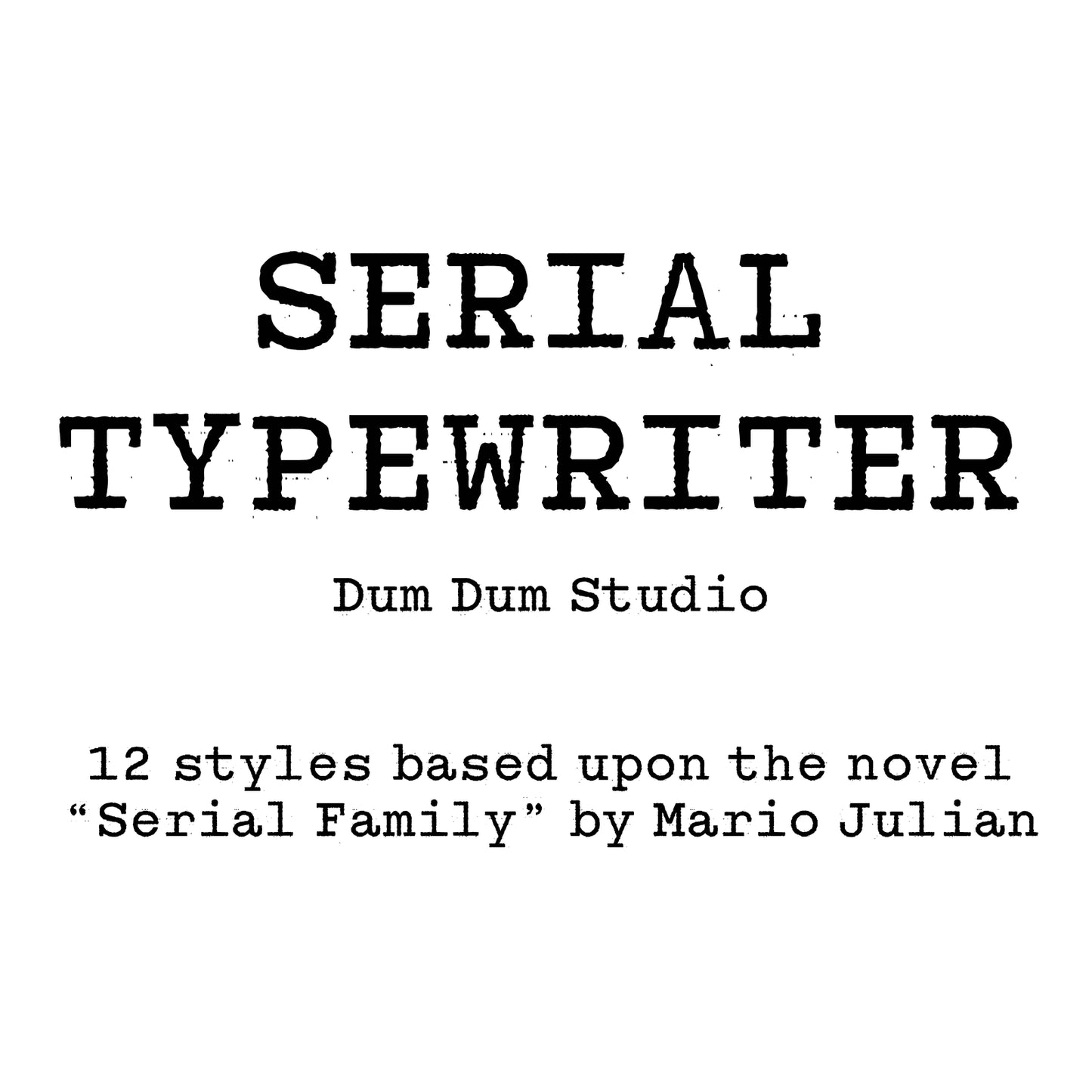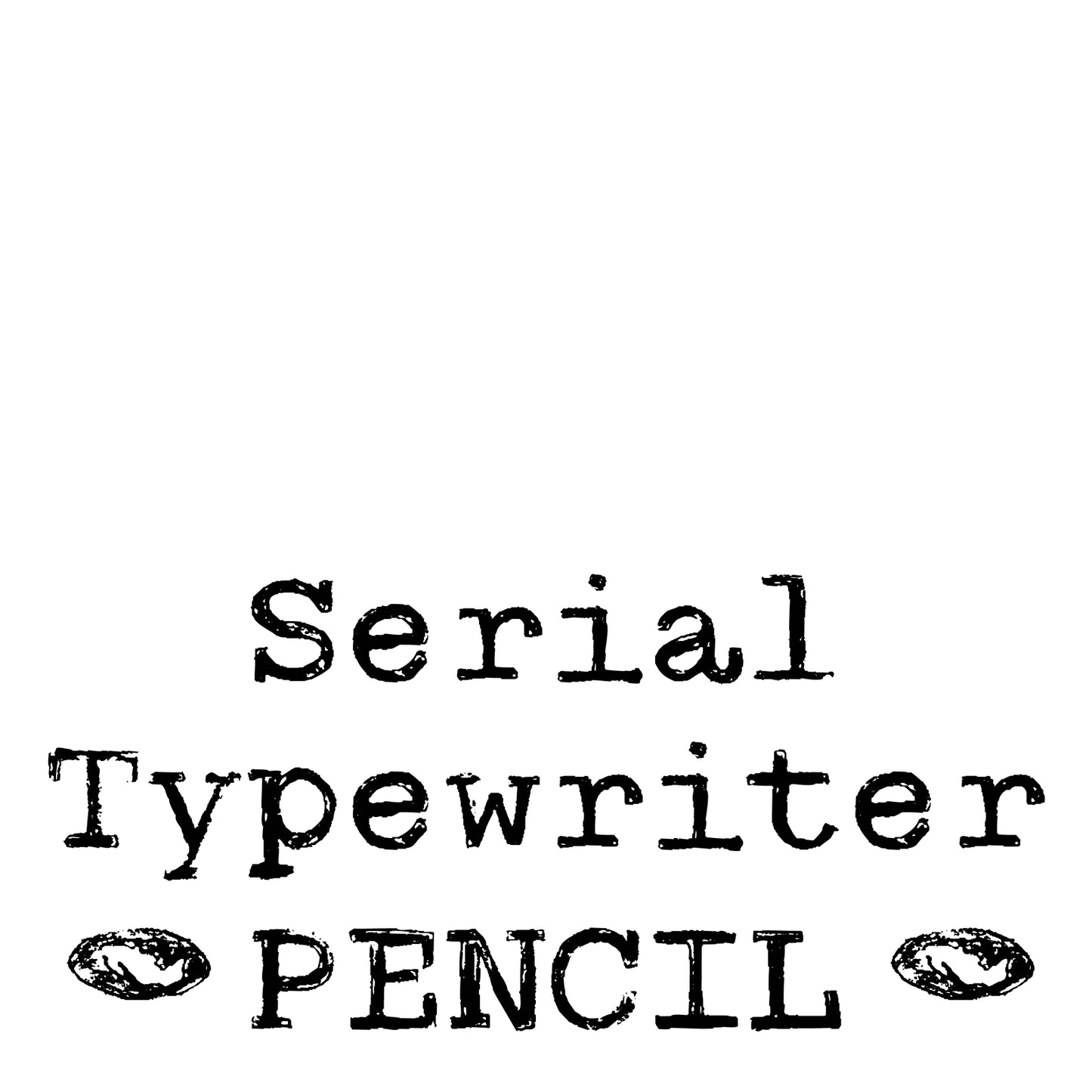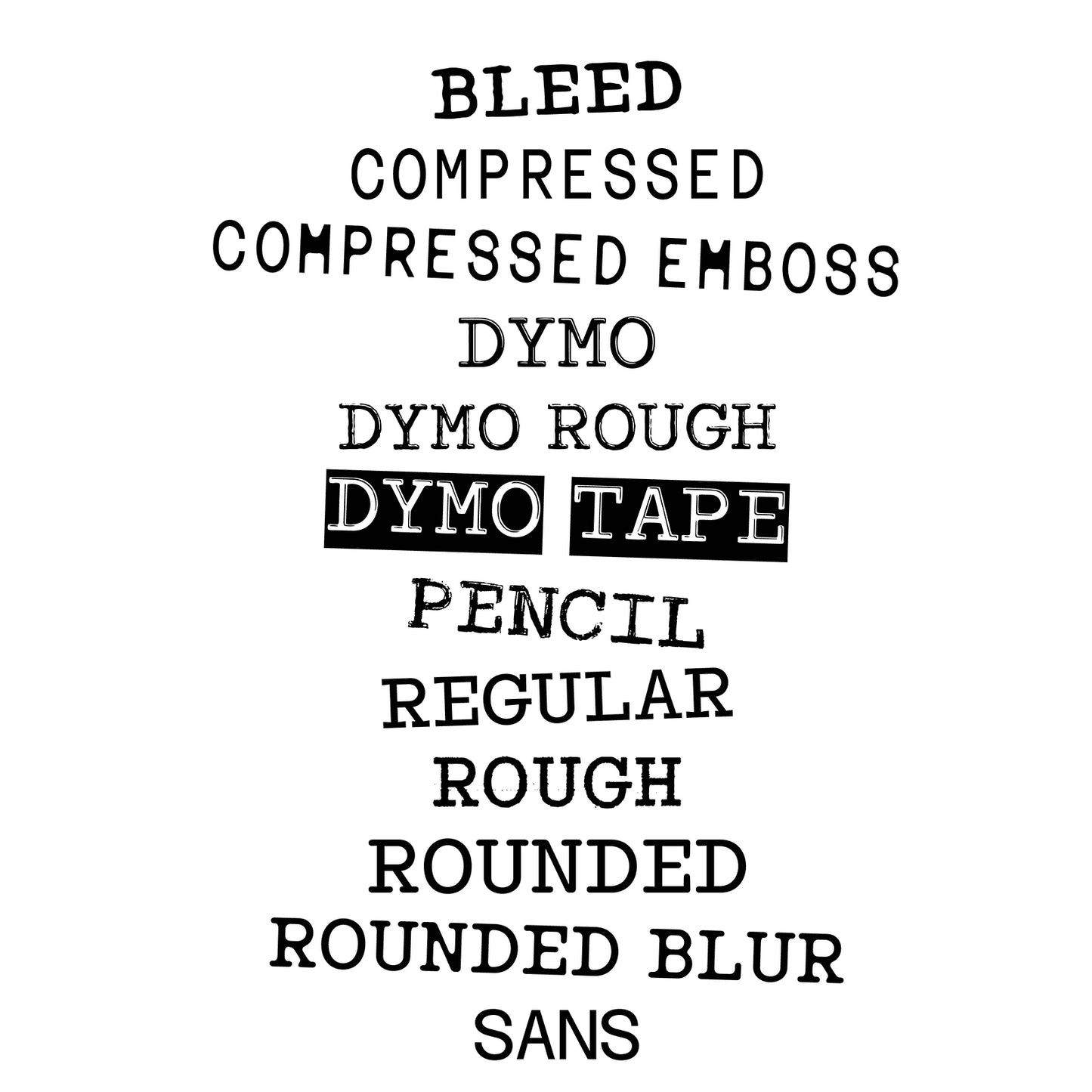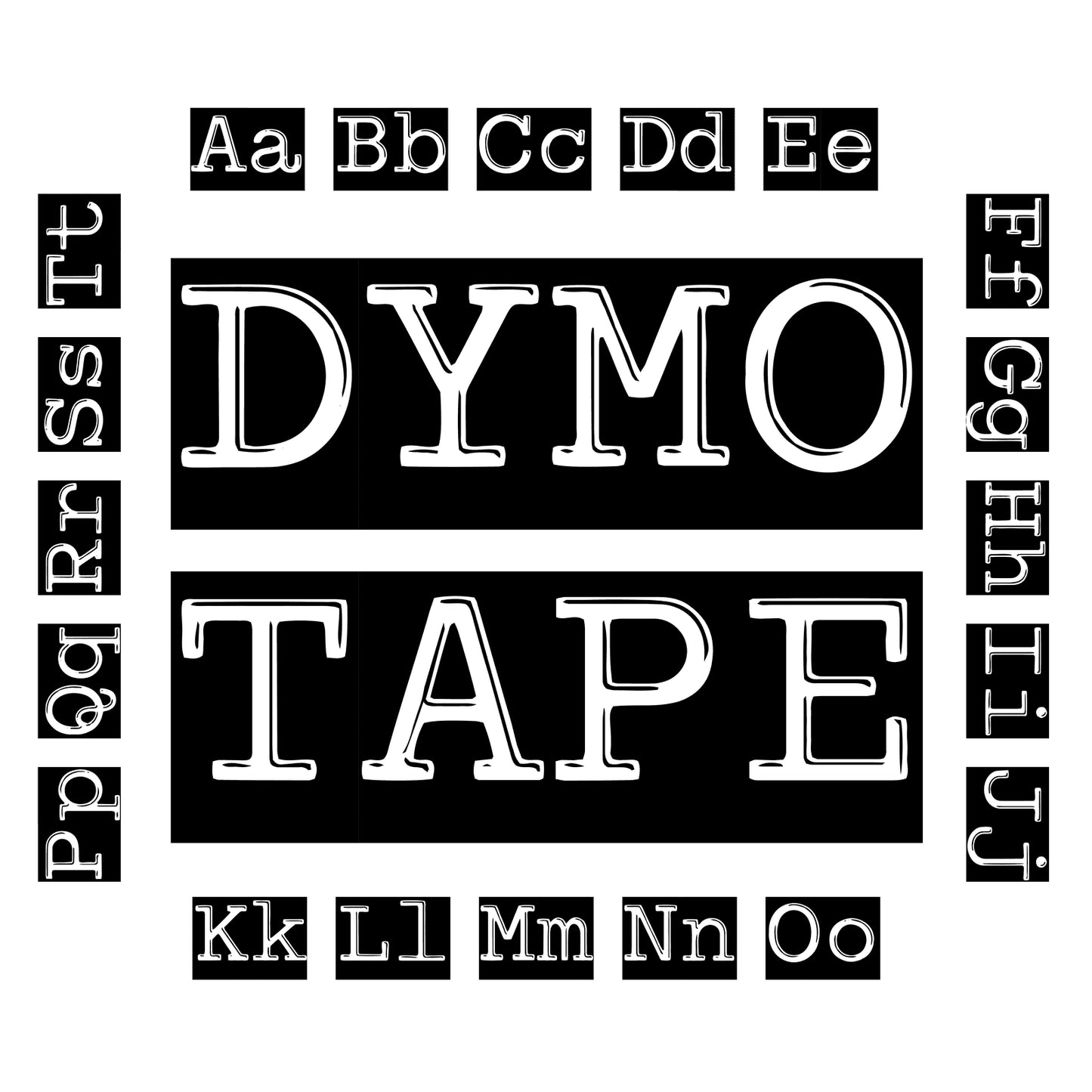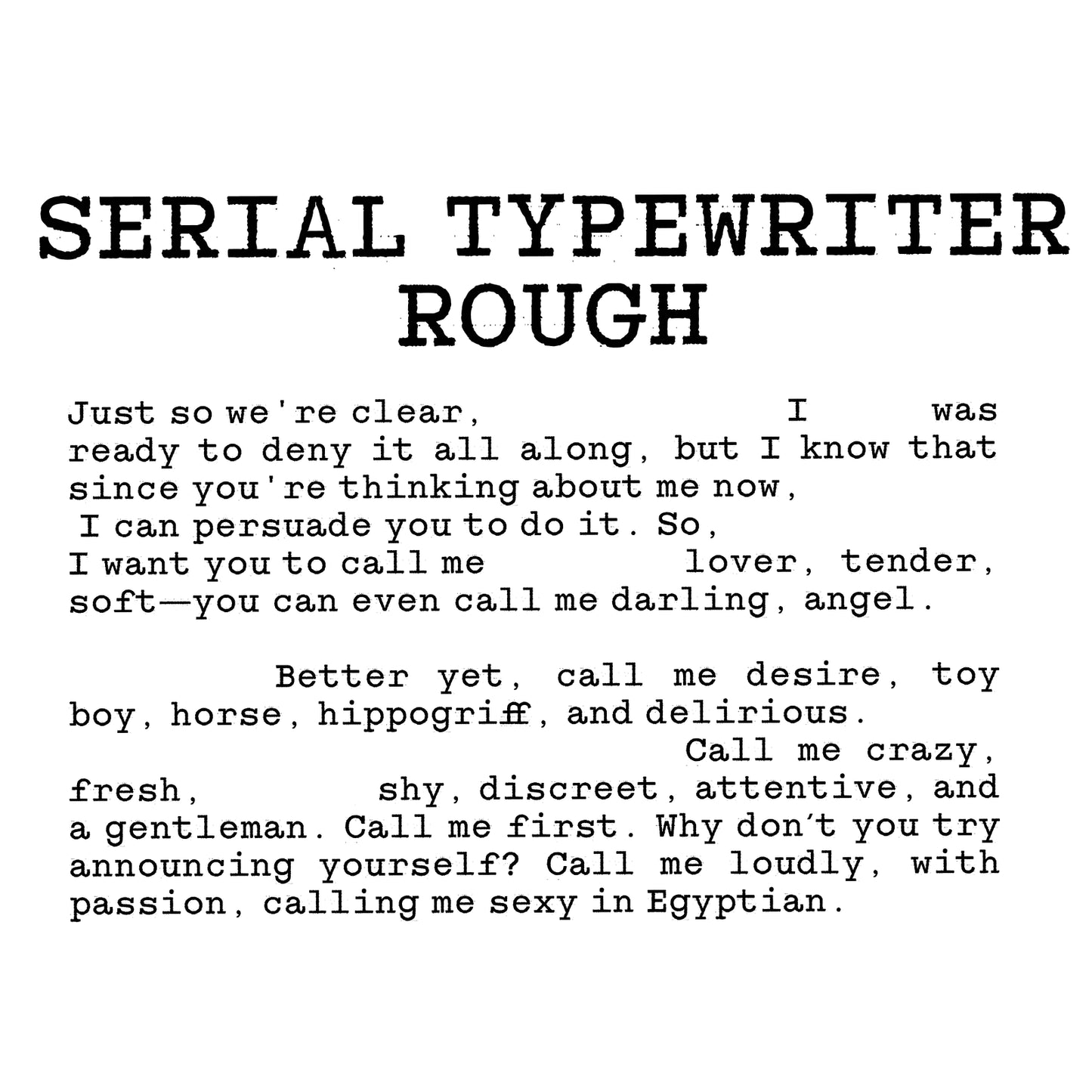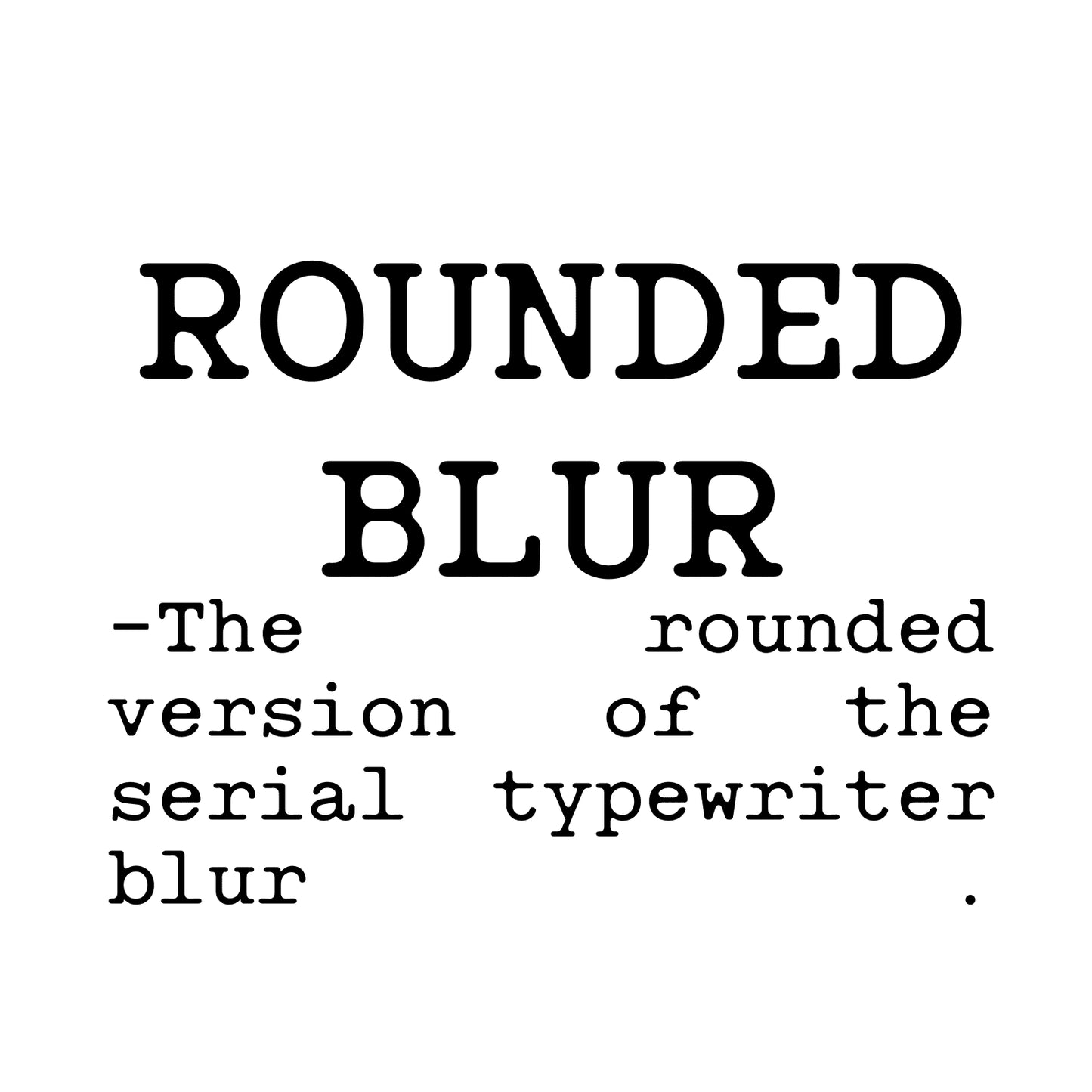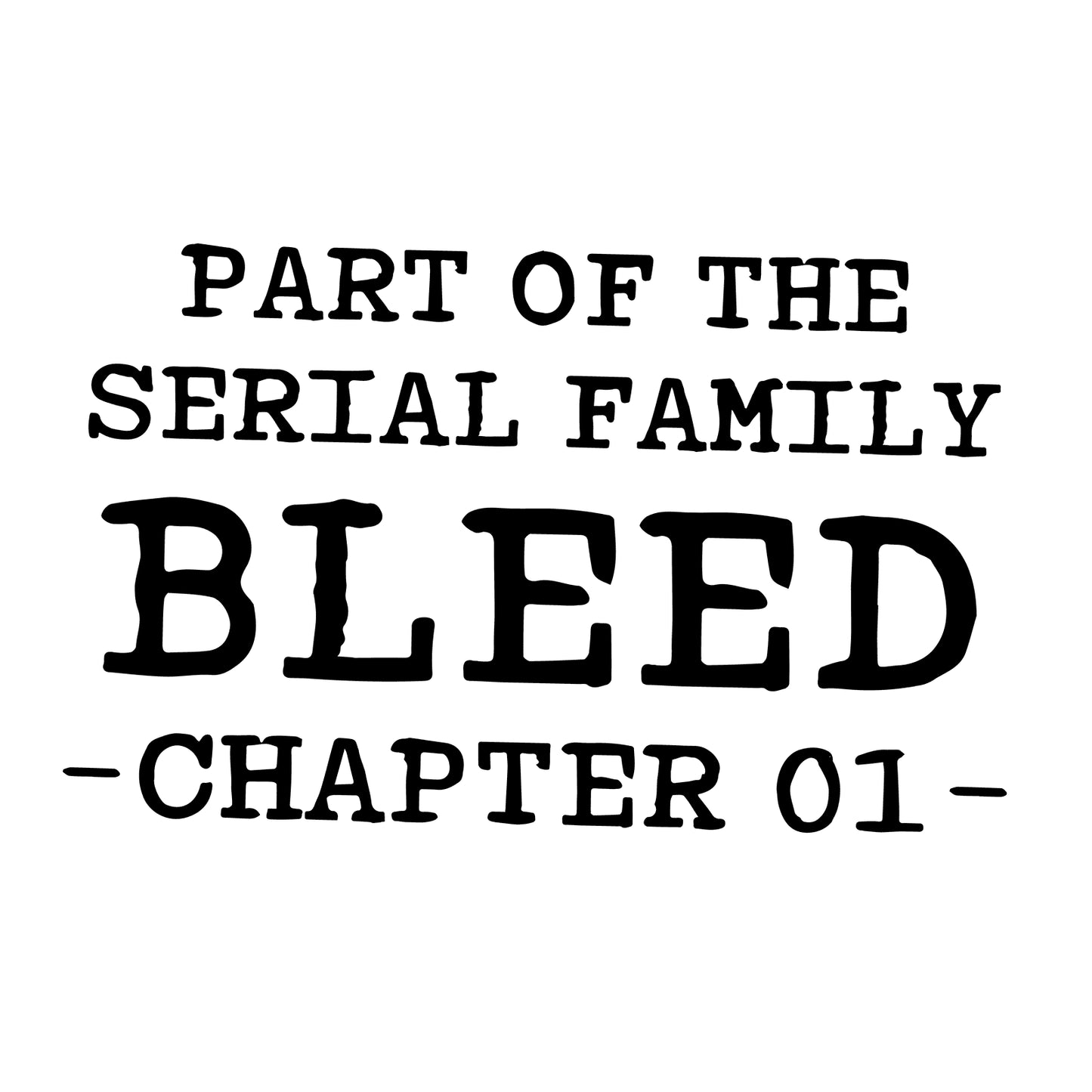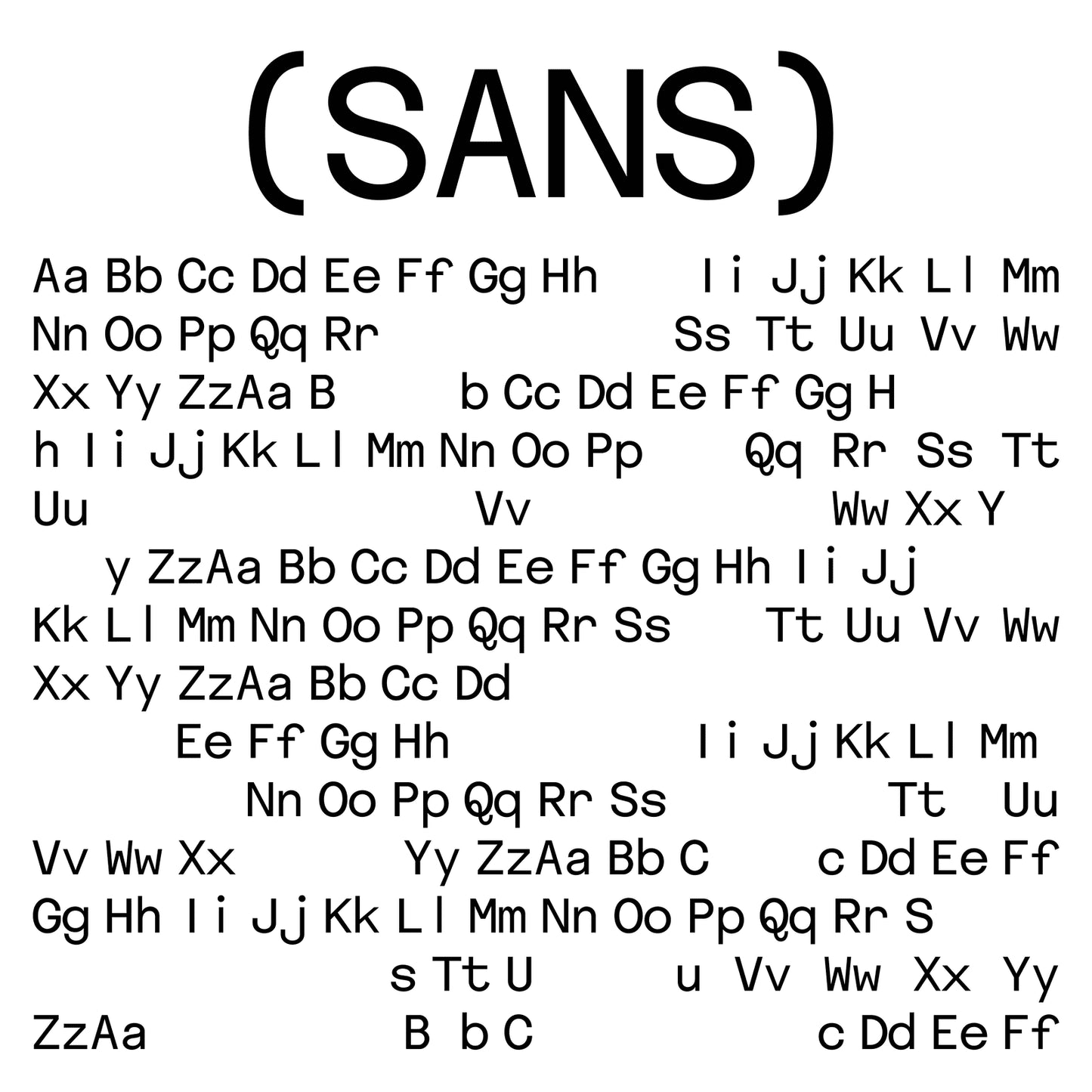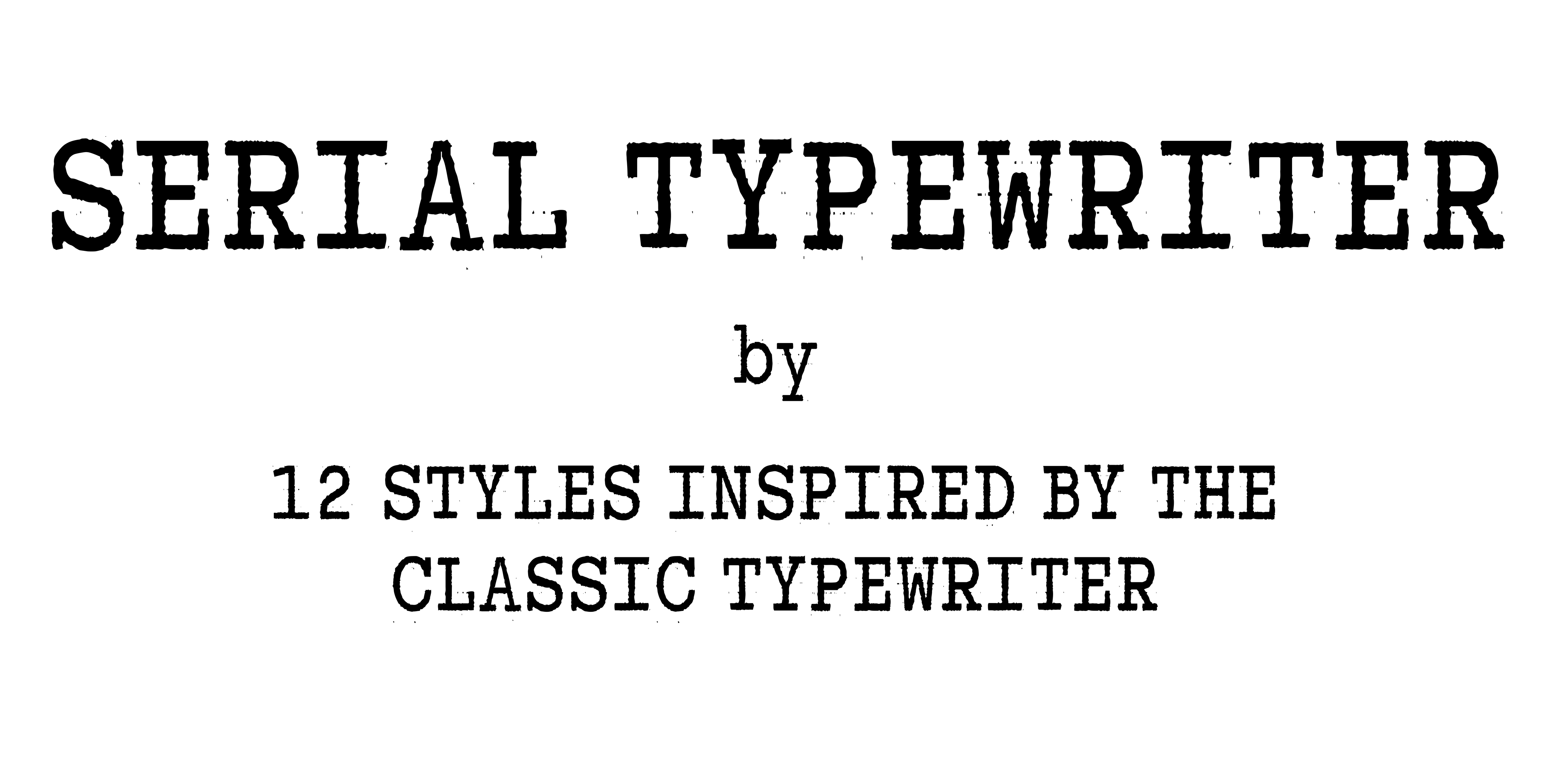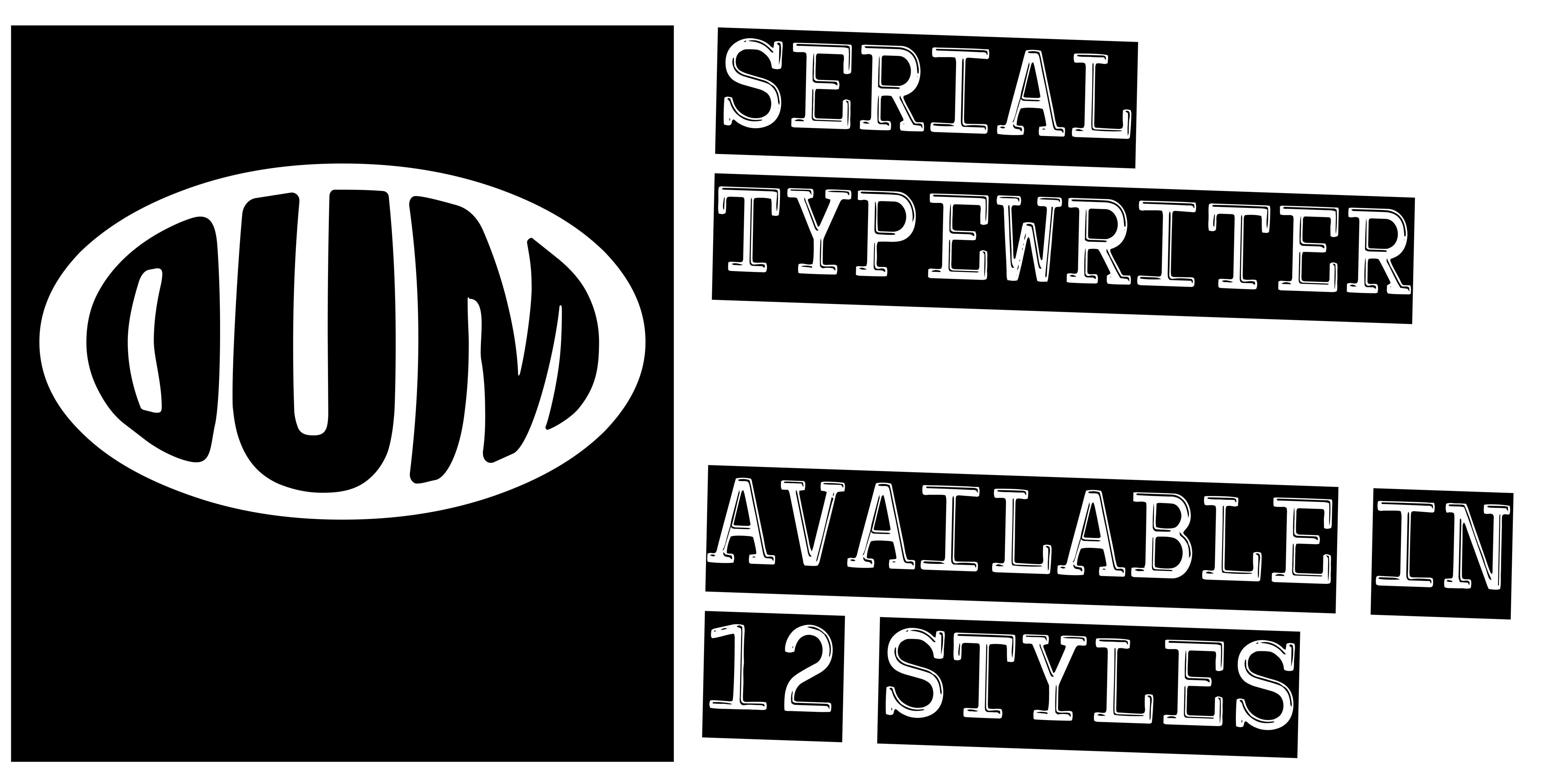
Serial Typewriter
Mario Julian Gutierrez
Serial Typewriter is an exploration of classic typewriters, featuring serif, sans, and compressed versions, along with textural variations that mimic the feel of pencil, ink, and pen.
Additionally, it includes an "embossed" version and a DYMO-inspired style, adding even more depth to its character.
With its monospaced structure, Serial Typewriter is a playful yet functional typeface, capturing the charm and imperfections of analogue printing while offering a variety of expressive styles.
— 10 STYLES
— TOTAL GLYPHS: 443 GLYPHS
— LIGATURES
— ALTERNATES AND SUBSTITUTES